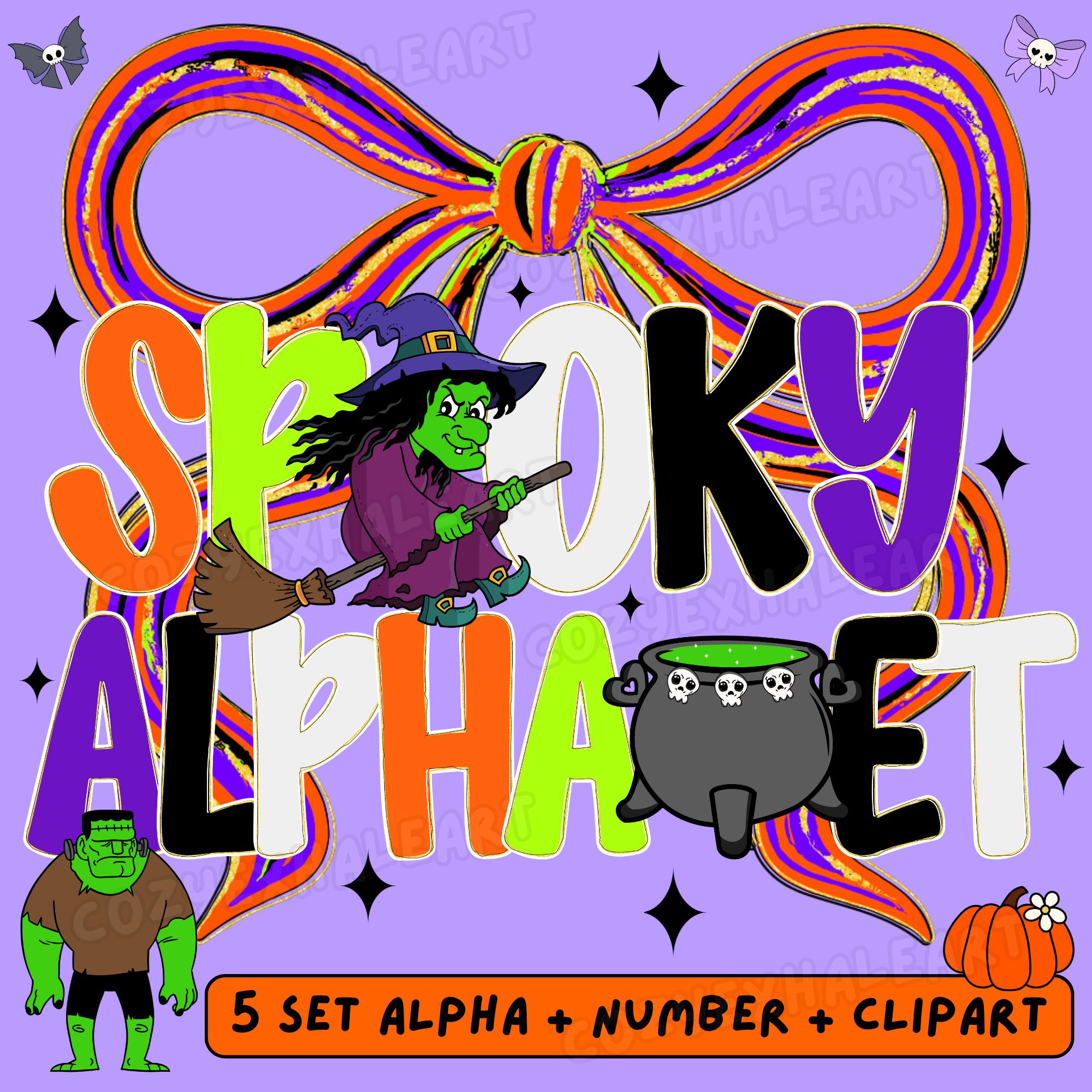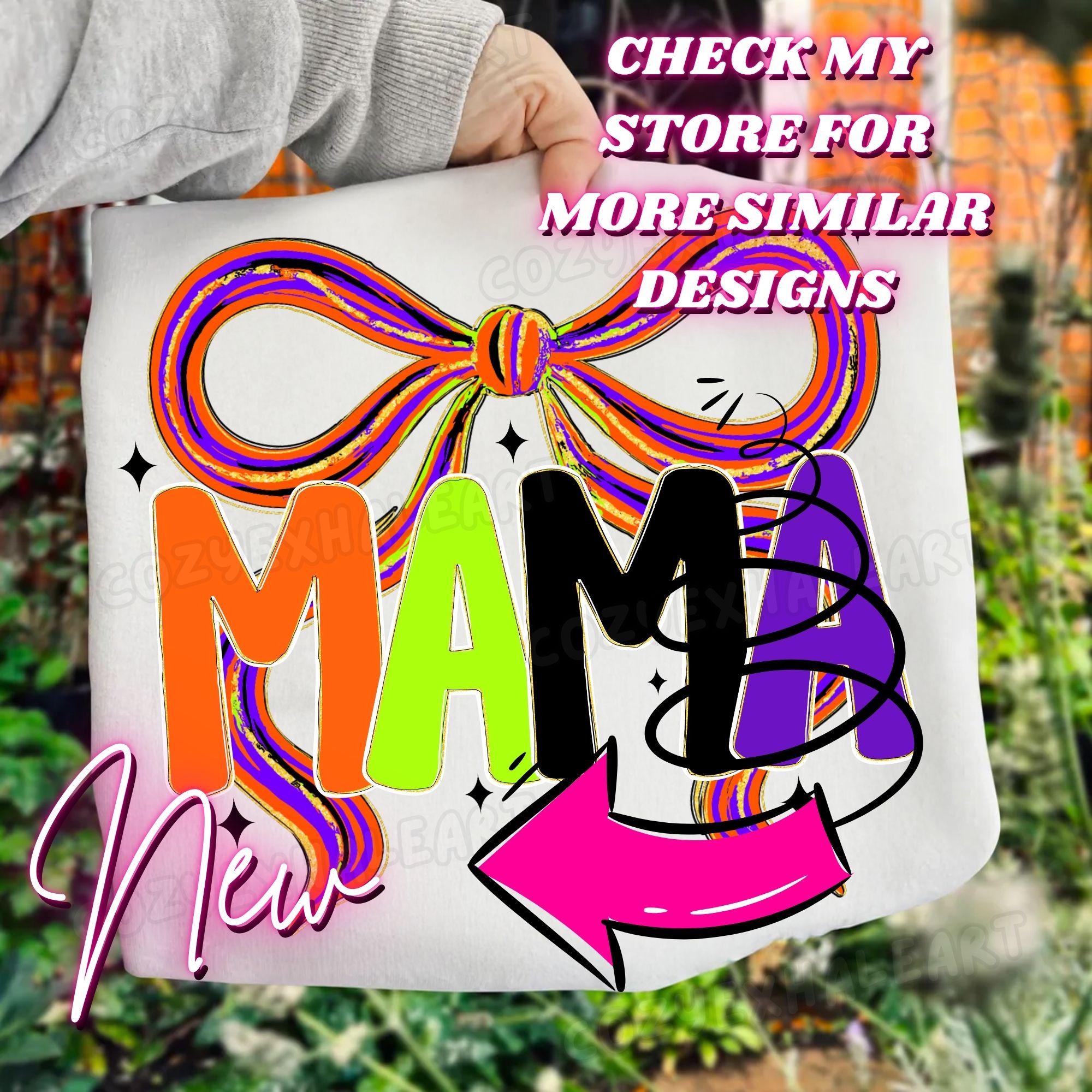
Spooky Halloween Font PNG with Hand Drawn Doodle Letters, Bats, Ghosts, Pumpkins Preppy Coquette Alphabet Bundle for Spooky Season Designs 5 Colors
Elevate your Halloween designs with this Spooky Letters PNG Bundle featuring hand-drawn doodle-style fonts! With charming bat, ghost, and pumpkin accents, this preppy and coquette-inspired alphabet is perfect for all your spooky season projects—from t-shirts and tumblers to party invitations and digital artwork. 🖤🎃👻
✏️ Includes a full doodle alphabet PNG set with Halloween-themed illustrations
🦇 Features bats, ghosts, pumpkins, and retro-style lettering
💖 Designed in a preppy, coquette aesthetic perfect for girly spooky season projects